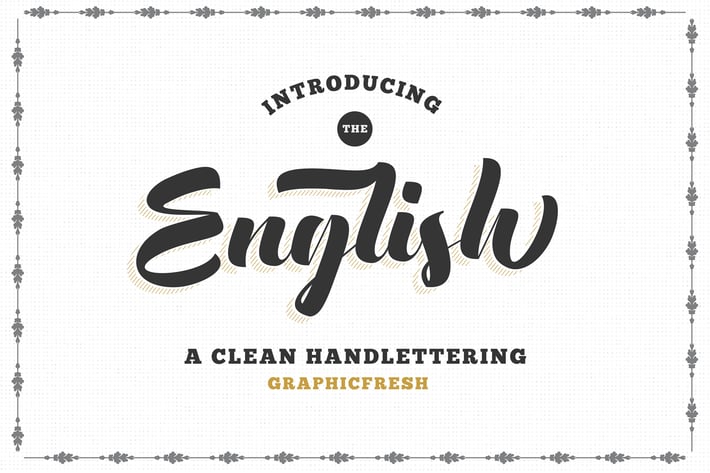
The English Font - Vintage Lettering
The English Font – Vintage Lettering
English is a vintage lettering font with Clean versions as well. it’s perfect for logos, name card, magazine layouts, invitations, headers, or even large-scale artwork.
This typeface is comes in uppercase, lowercase, punctuations, symbols & numerals, stylistic set alternate.
-Lowercase
- Punctuation and Number
- Stylistic Set Alternate